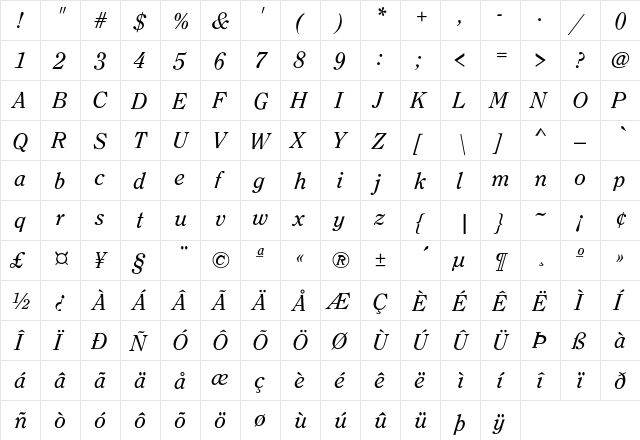
Bondoline Regular
Design Context for Bondoline Typeface
Bondoline takes a measured approach to typography — its balanced proportions and neutral character make it a reliable workhorse for both digital and print work.